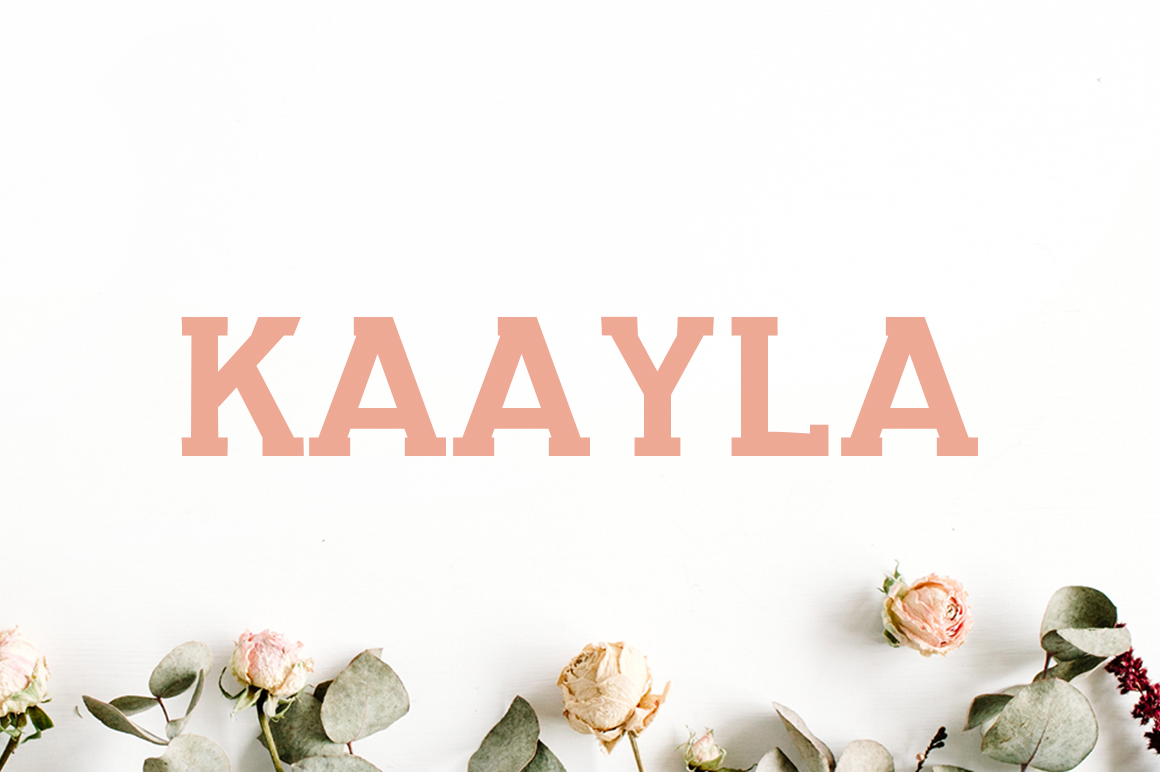
KAAYLA FONT SPECIMEN
The Kaayla Slab Serif family contains 4 weights.
It will add a stylish touch to your designs within seconds. It’s very legible, making it the perfect font for advertising, print and more.